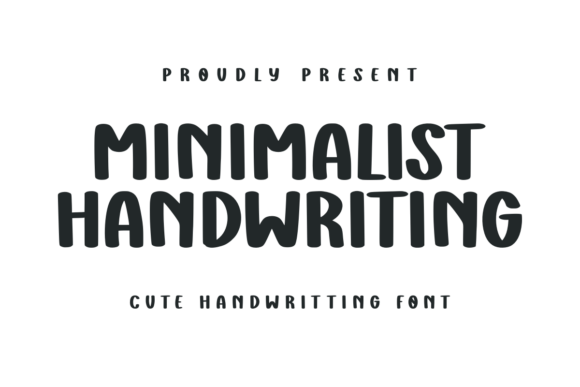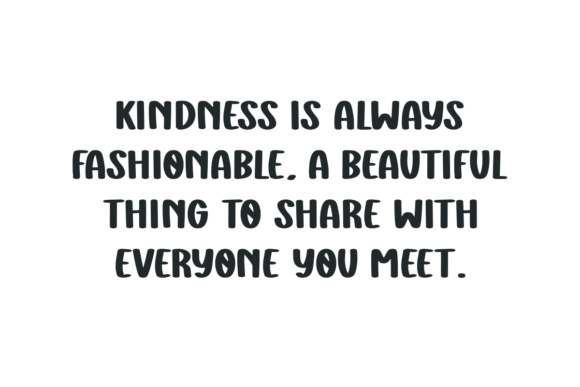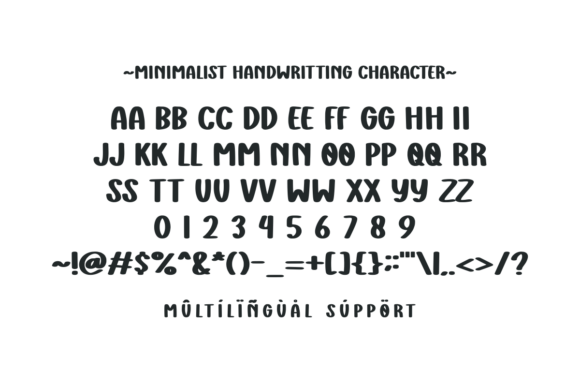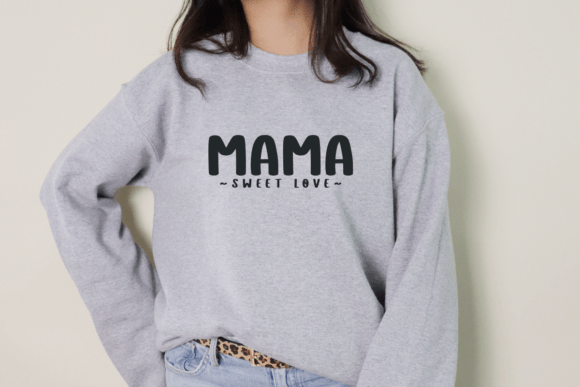
Minimalist Handwriting Font
About the Minimalist Handwriting Font
The Minimalist Handwriting Font offers a perfect balance of form and function for your design needs. Minimalist Handwriting is a charming handwriting font with a clean yet whimsical vibe. Featuring smooth curves and a hand-drawn feel, this font is perfect for romantic designs, wedding invitations, heartfelt branding, and elegant social media graphics. Its versatile style pairs a modern aesthetic with a touch of playful warmth, making it ideal for creative and love-inspired projects.
This font shines in applications requiring a touch of handwritten charm without sacrificing legibility. Headlines, short paragraphs, and branding elements benefit most from its unique character. Consider it for logos, short quotes on marketing materials, or packaging for artisanal products. However, it’s less suitable for lengthy body text or user interfaces due to its potentially lower readability at smaller sizes.
Minimalist Handwriting’s personality is best described as friendly and approachable, yet sophisticated. Think modern wedding invitations, boutique branding, or a handcrafted goods label. Its inherent elegance prevents it from being overly casual.
Pairing it with a clean sans-serif like Lato or Open Sans provides a contemporary contrast, balancing its hand-drawn feel. For a more traditional approach, a simple serif like Merriweather would create a harmonious blend. Avoid pairing it with overly decorative or heavily stylized fonts, which might detract from its unique appeal.
Minimalist Handwriting Font Usage Examples
Minimalist Handwriting Font Example